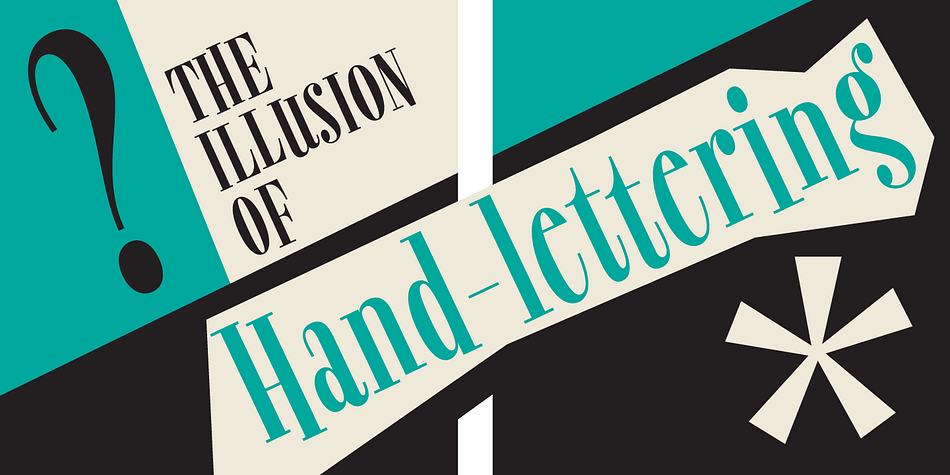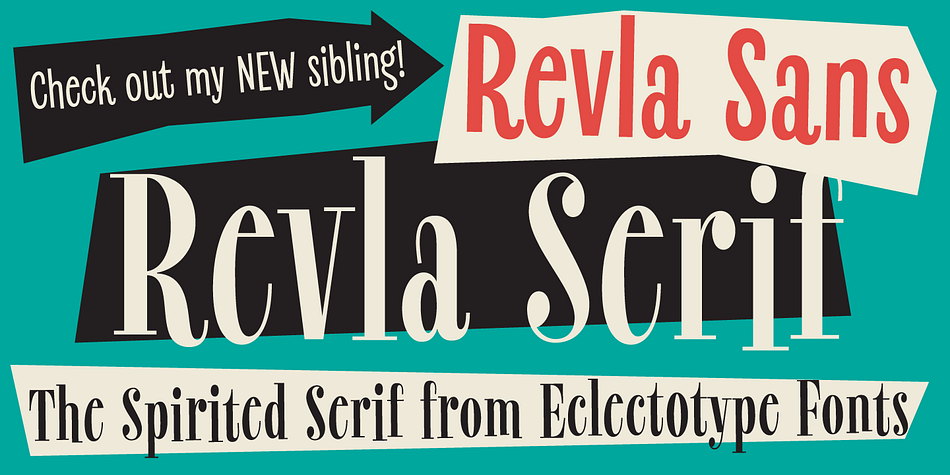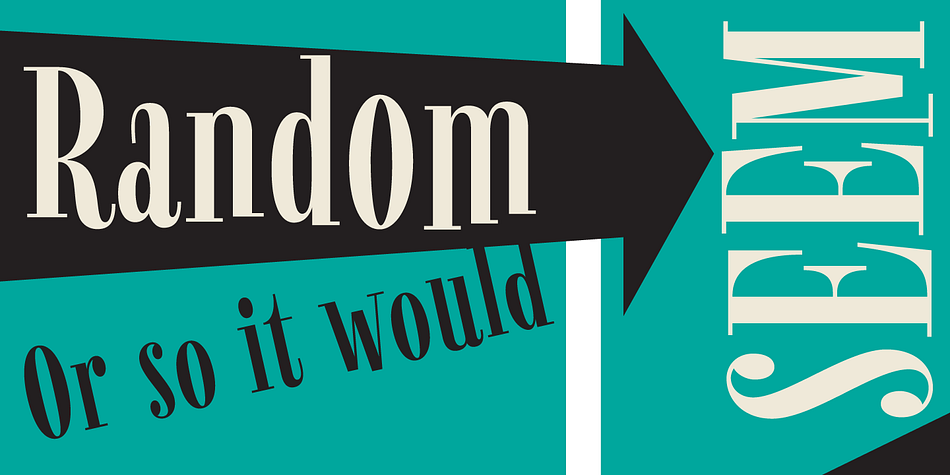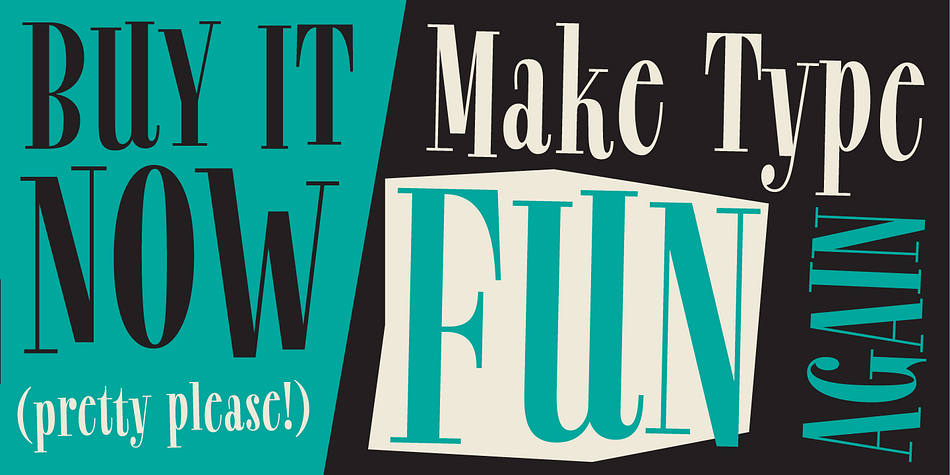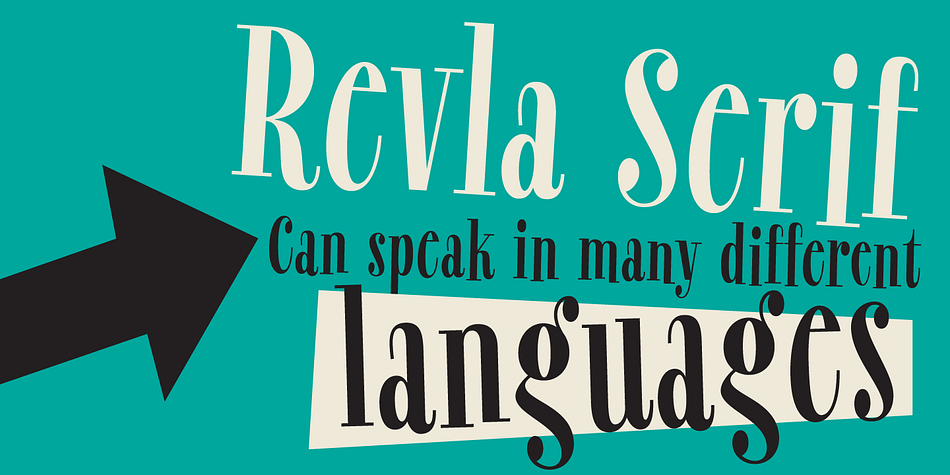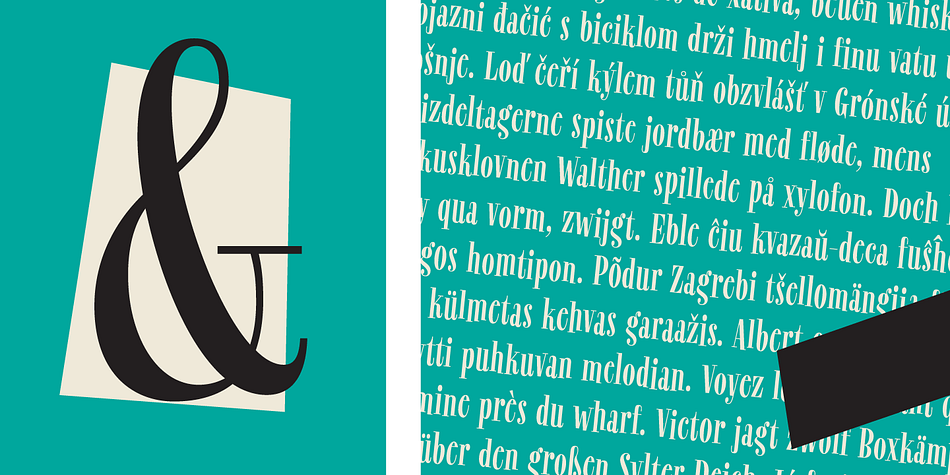
Revla Serif
Designed by Dave Rowland, Revla Serif is a display serif font published by Schizotype Fonts.
Meet Revla Serif, an unashamedly spirited font, with a spring in its step and a lust for life. Loosely based on a few letterforms from a mid century poster, it takes the feel of Madison Avenue print ads and runs with it.
OpenType acrobatics ensure letters don’t repeat monotonously, using the contextual alternates feature.
Also included for your viewing pleasure - automatic fractions, case sensitive forms and one solitary stylistic alternate, an alternative ampersand. And that’s it! Put the fun back into your text with Revla Serif.